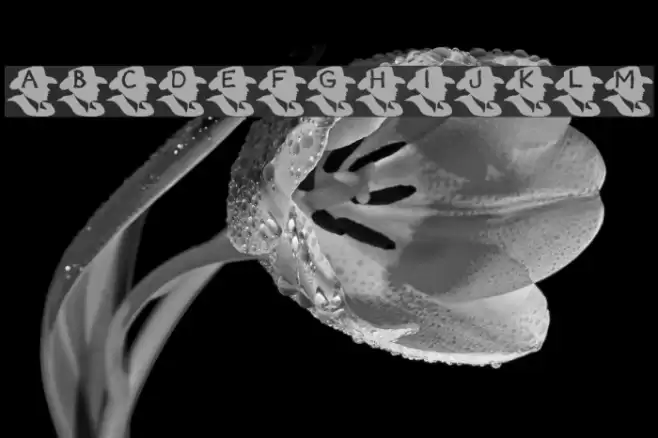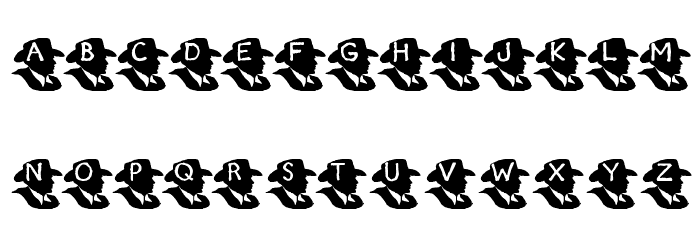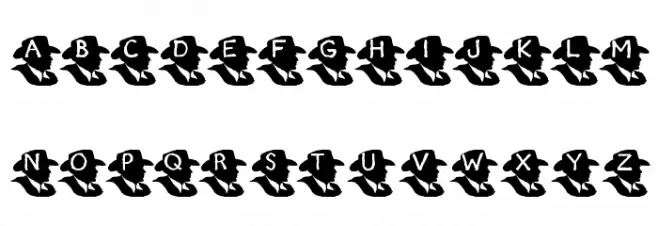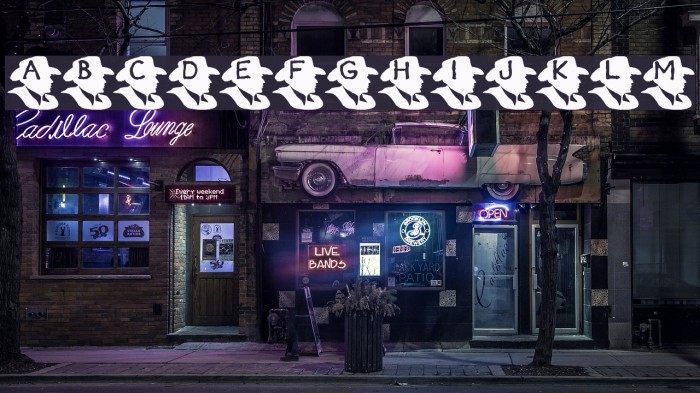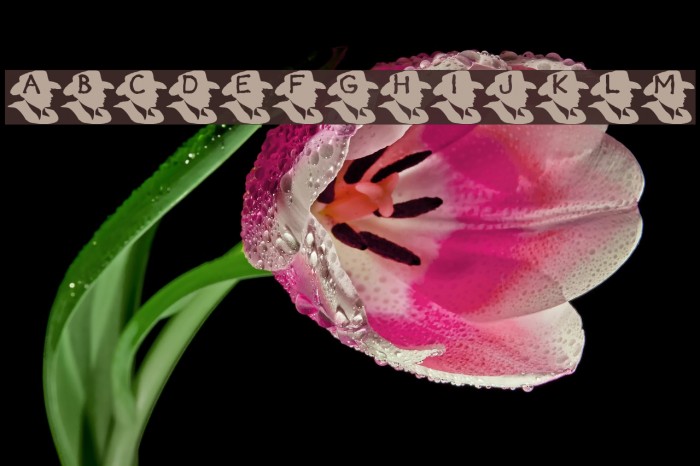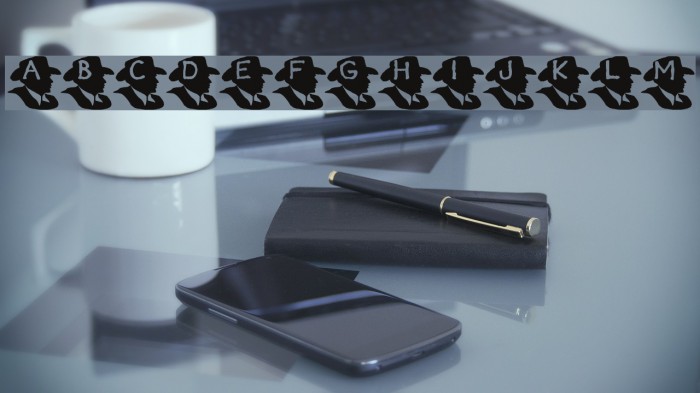
KR Maverick Font
KR Maverick Description
This font features a bold and dynamic design, characterized by its unique incorporation of a cowboy hat silhouette into each letter. The uppercase letters are striking and convey a sense of adventure and ruggedness, making it ideal for themes related to the Wild West or country-style events. The bold strokes and distinctive shapes ensure high visibility and impact, while the playful integration of thematic elements adds a decorative flair. This font is perfect for creating eye-catching headlines, posters, or branding materials that need a touch of personality and thematic relevance.
A bold, decorative font with cowboy hat motifs integrated into each letter from Uncategorized fonts.
- Proposed Projects: Ideal for Western-themed posters, event invitations, branding for country-style businesses, or any project needing a playful, thematic touch.